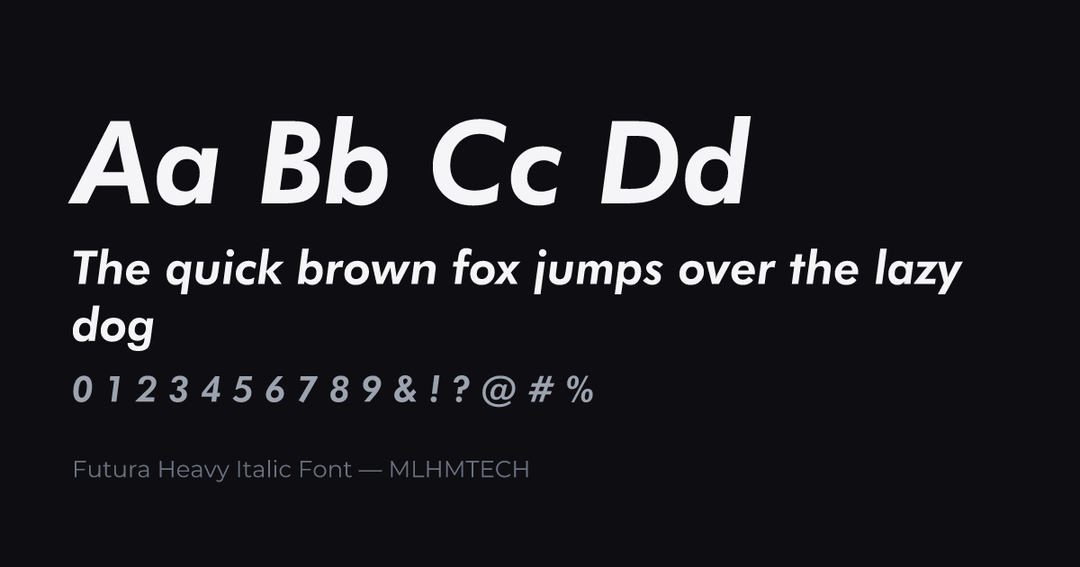
Futura Heavy Italic Font
Futura Heavy Italic is a bold, geometric sans-serif font with an elegant italic slant. Ideal for headlines, logos, and contemporary design projects.
Futura Heavy Italic is a striking typeface that combines the timeless geometry of Futura with a dynamic italic angle. Its heavy weight ensures strong visual impact, making it perfect for headlines, posters, and branding.
This font is part of the classic Futura family, designed by Paul Renner in the 1920s. The heavy italic variant adds a sense of motion and emphasis, ideal for capturing attention in both print and digital media.